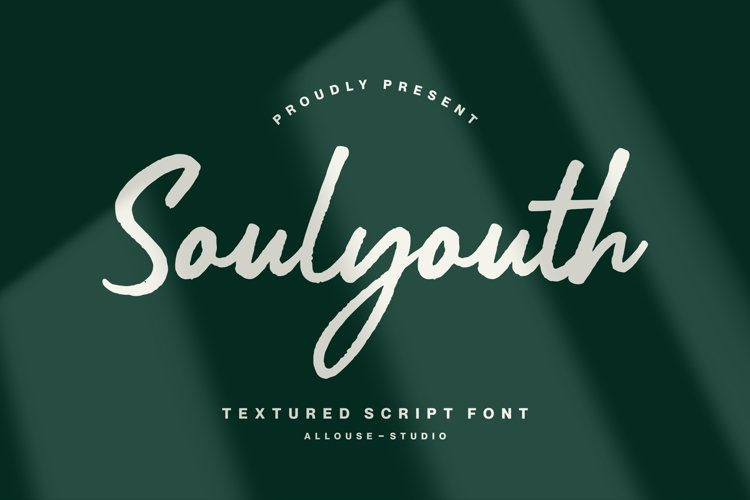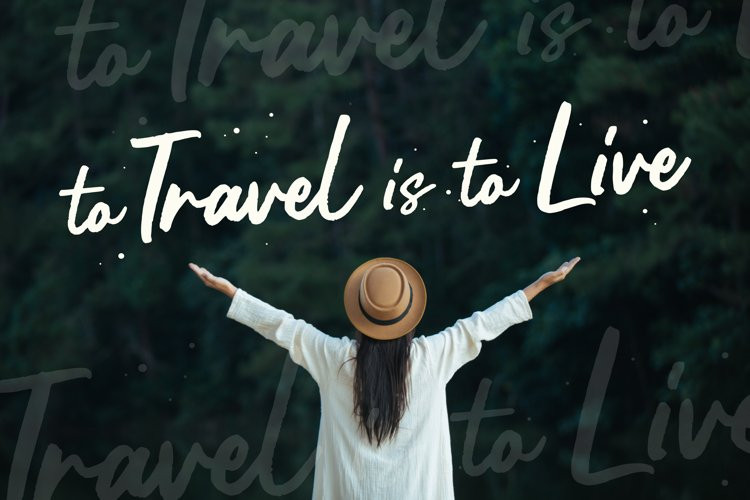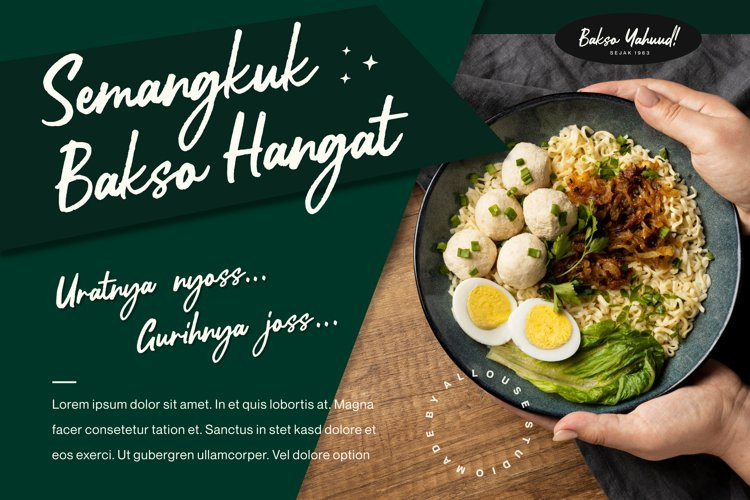
Soulyouth Font
Soulyouth FontSoulyouth is A Textured Script Font
Soulyouth is perfect for product packaging, branding project, megazine, social media, wedding, or just used to express words above the background.